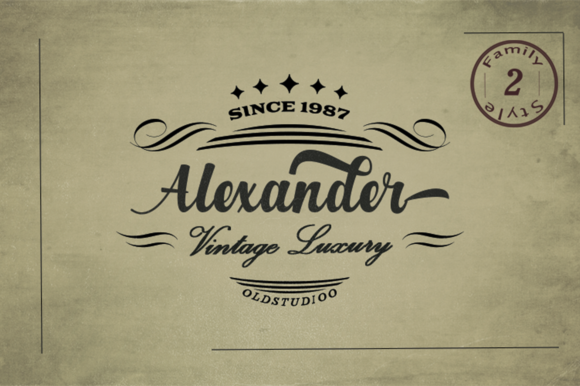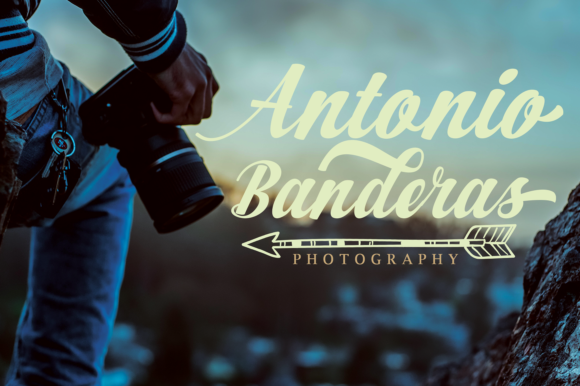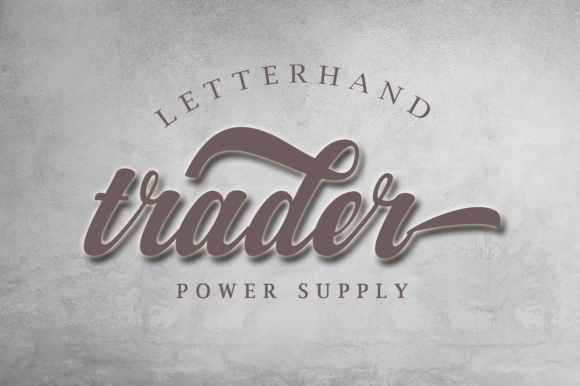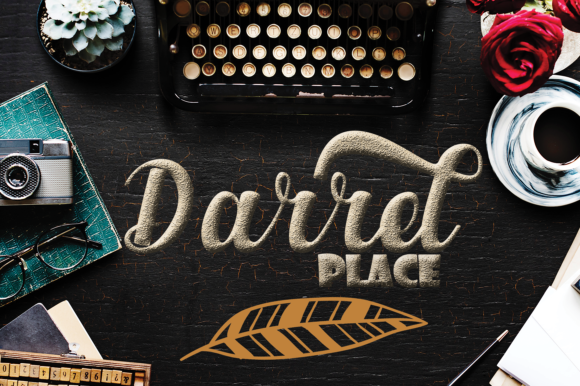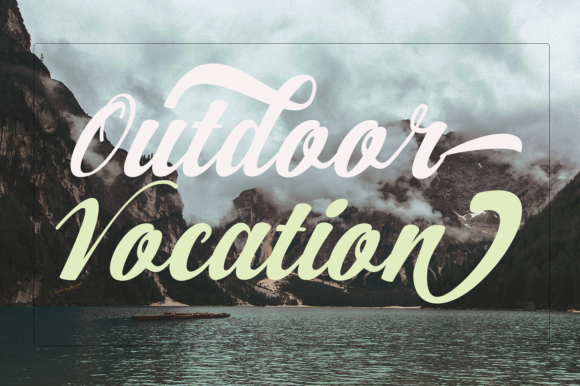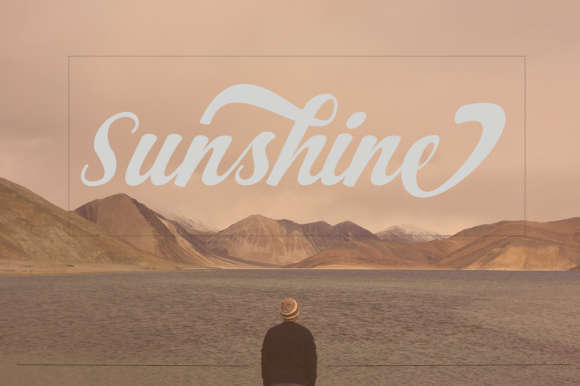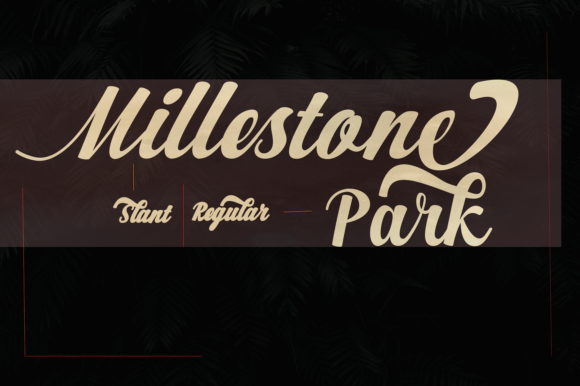
Alexander Font
About Alexander Font
The Alexander Slant is a beautiful script typeface with its own personality. The flowing characters are ideal to make an attractive message, but can also be used for various other designs.